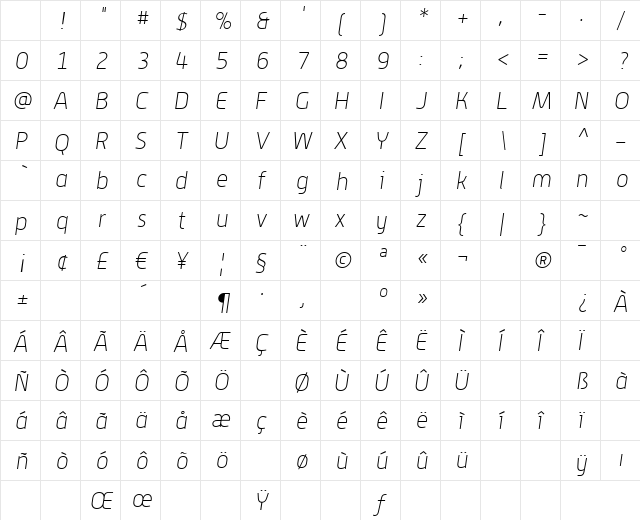
Complete Alwyn ThinOblique glyph index. Displaying only characters natively supported by Alwyn ThinOblique font.
Alwyn is a composed and adaptable typeface that performs quietly and consistently across a wide range of design contexts. The slanted form adds forward momentum and visual energy. Its slender proportions lend an understated elegance to any composition.